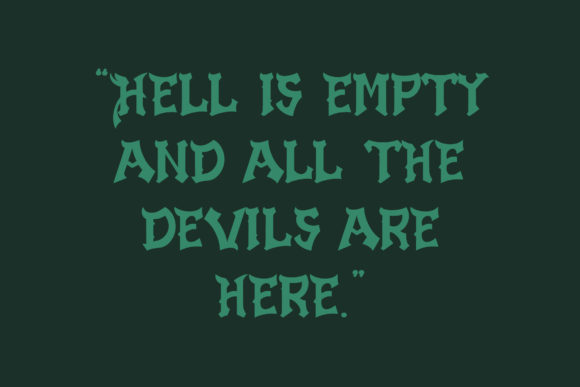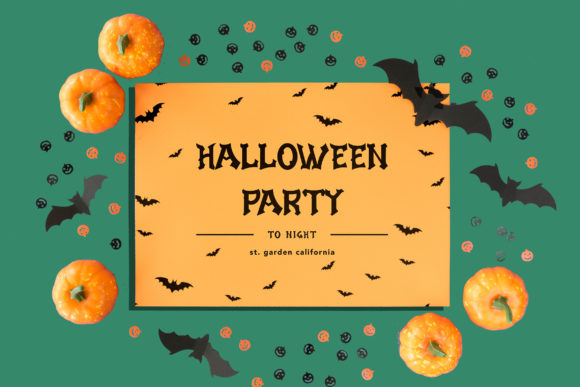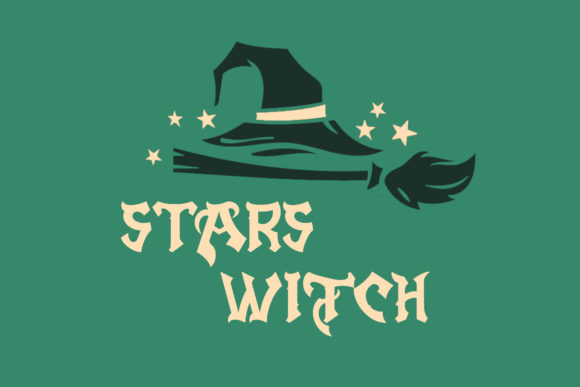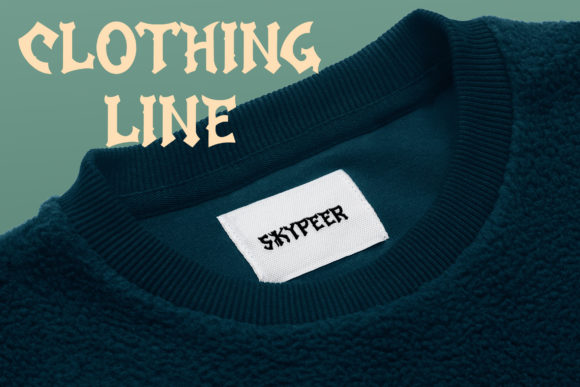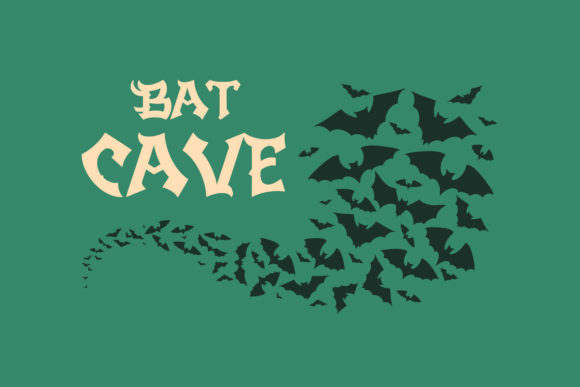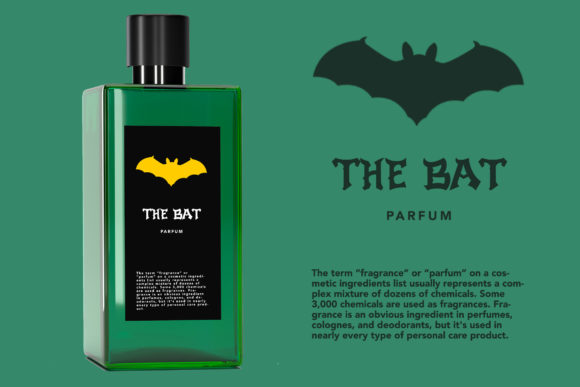
Introduction to Outflow Font
Have you ever stared at a blank page, brainstorming ideas for a creative project, and suddenly, a burst of inspiration strikes? For designers, moments like these are a treasure, and the right font can make all the difference. That’s where the charming Outflow Font comes in – a delightful display font that’s sure to bring a touch of joy to your designs.
As a valuable design resource, Outflow Font offers high-quality details and a quirky feel that’s perfect for cartoon-related designs, children’s games, quotes, titles, and more. Whether you’re working on a free download or a paid project, this font is a great choice for adding a playful twist to your work. With its transparent background and versatile style, Outflow Font is an excellent addition to any designer’s toolkit.
Honest Review: Outflow Font
I recently came across the Outflow Font, a high-quality design resource that caught my attention. As a designer, I’m always on the lookout for new and interesting fonts to use in my creative projects.
The Outflow Font offers a unique and stylish look that can add a touch of elegance to any design. One of the standout features is its transparent background, which makes it easy to use in various design contexts.
- High-quality design: The Outflow Font is incredibly detailed and well-designed, making it perfect for high-end projects.
- Great for creative projects: The Outflow Font’s unique style makes it perfect for use in creative projects, such as branding, advertising, and more.
- Limited language support: The Outflow Font may not be compatible with all languages, which could be a drawback for designers who need to create content in multiple languages.
- Not ideal for small text: Due to its unique design, the Outflow Font may not be the best choice for small text or body copy.
Overall, I’m impressed with the Outflow Font, and I think it’s a great addition to any designer’s toolkit. While it may have a few limitations, its unique style and high-quality design make it a valuable resource for creative projects.
Common Use Cases for Outflow Font
The Outflow Font is ideal for use in creative projects such as brochures, flyers, and social media graphics. Its high-quality design and transparent background make it perfect for use in a variety of design applications.